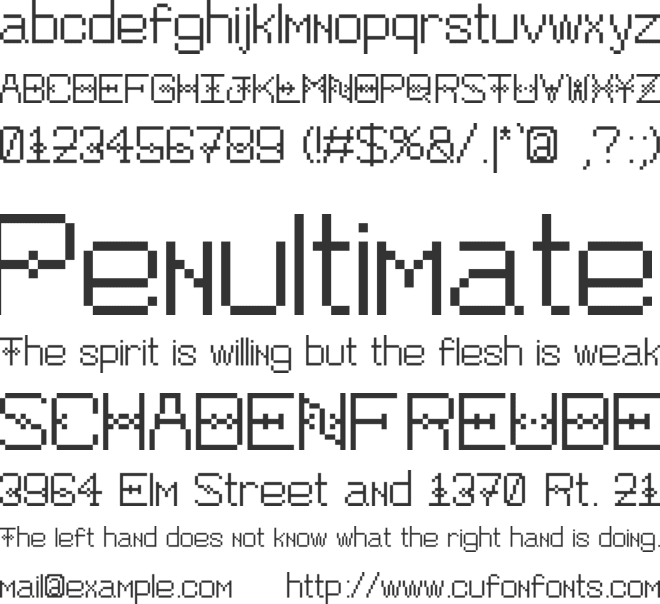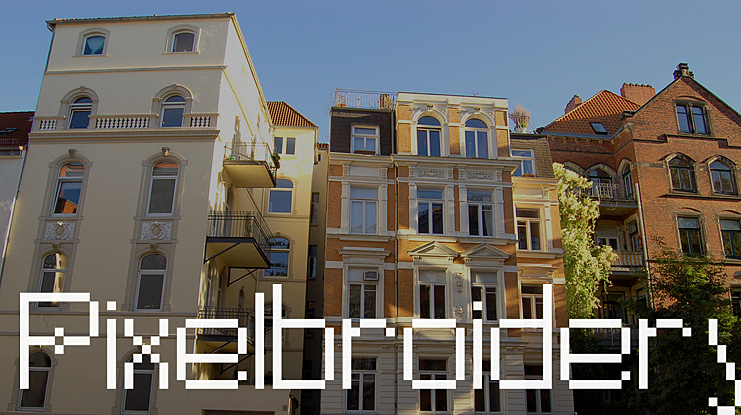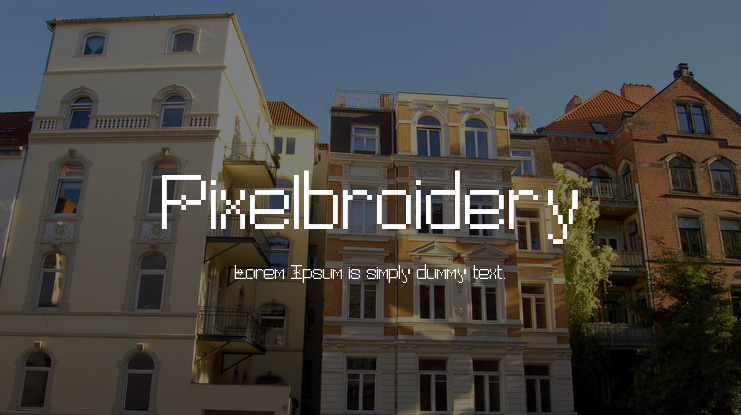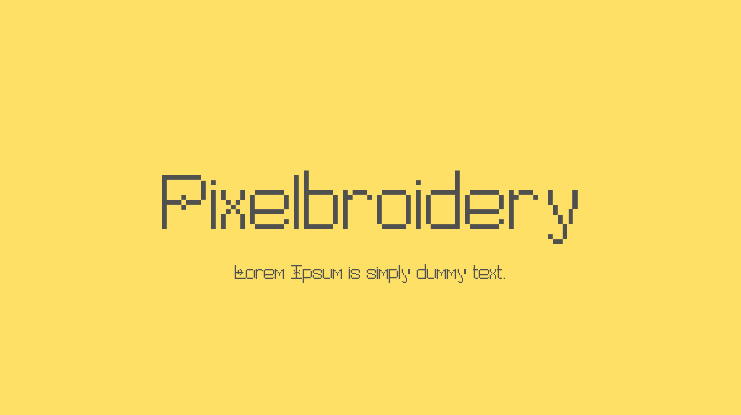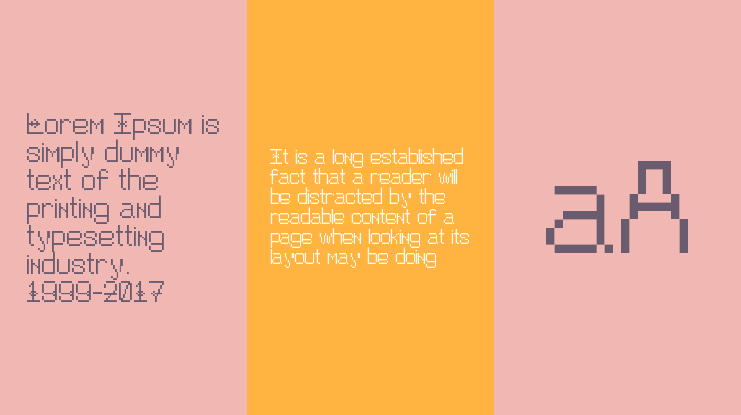
Pixelbroidery Font
Pixelbroidery, the light version.
This removes all the edges and lightens up all the letters to make it a sans-serif fashion.
2018 - Brett Wright (brettw)